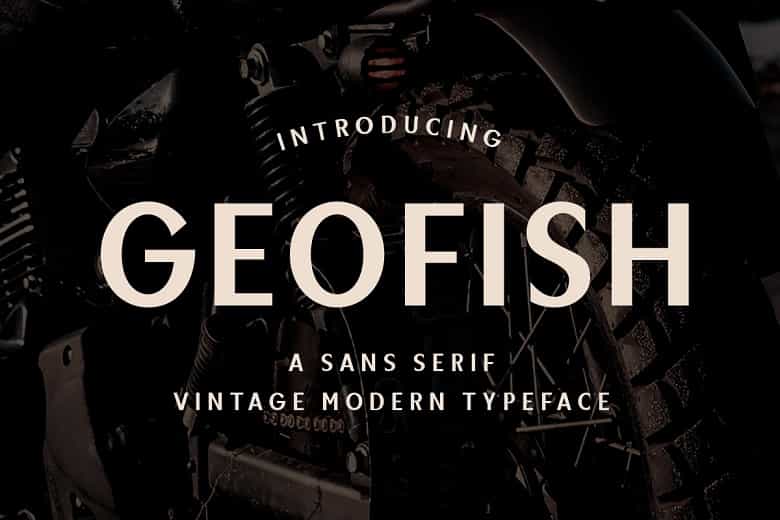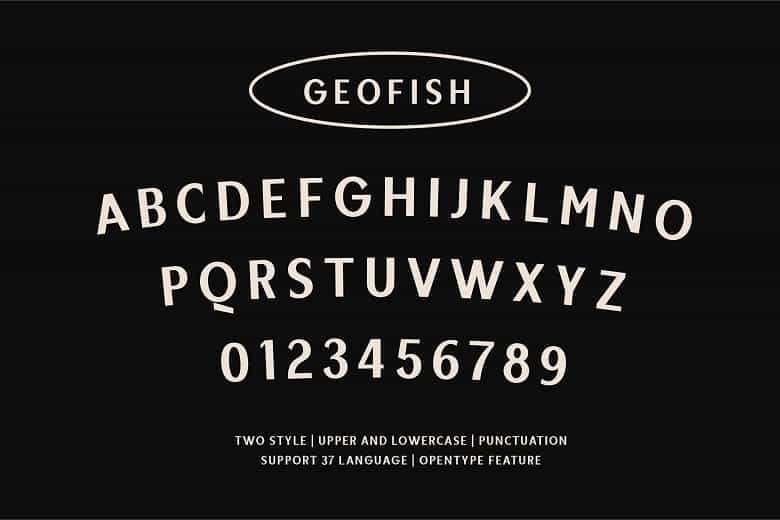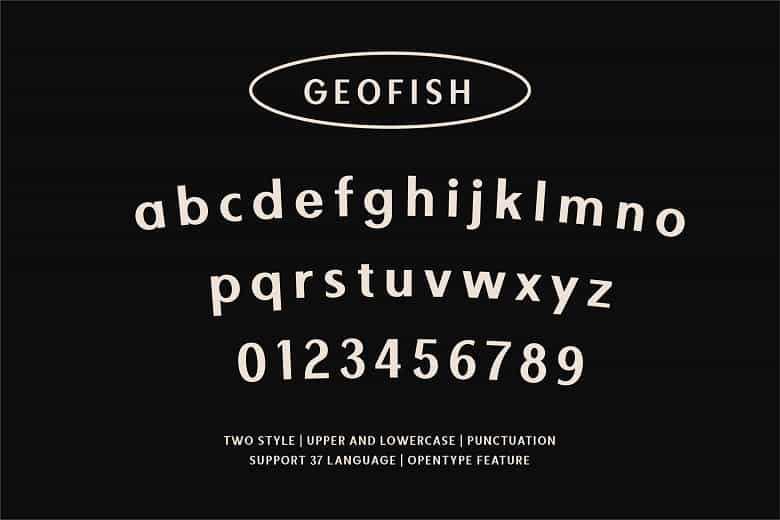
Geofish is a modern vintage sans serif font. Geofish is exactly what it says, the font for geeks, and the perfect font for anyone who wants to give their design a retro feel. So, if you want to create a home work that will capture a lot of attention, this is the font you should use!